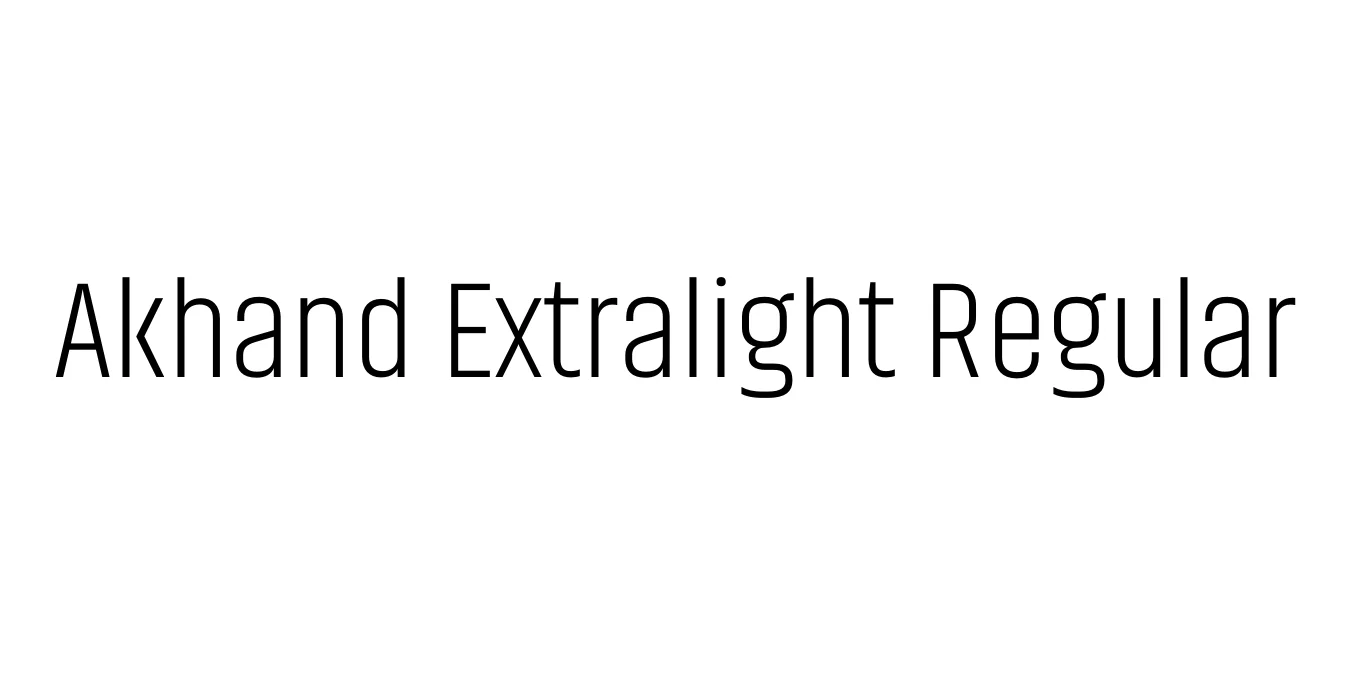
Akhand Extralight Regular
Designed by Satya Rajpurohit
Akhand Extralight Regular is a sophisticated member of the Akhand superfamily, designed by the renowned Satya Rajpurohit of the Indian Type Foundry (ITF). Characterized by its modular structure and condensed proportions, this typeface offers a clean, architectural aesthetic that thrives in modern design environments. The Extralight weight specifically brings a delicate and airy touch to the family's rigid geometry, making it an excellent choice for high-end editorial layouts and minimalist branding projects that require a sense of precision and contemporary elegance.
As part of a larger multi-script project, the design of Akhand focuses on maximum legibility within a compact footprint. Its straight-sided letterforms and open apertures ensure that even the lightest weights remain clear and impactful across various media. Whether utilized for sleek digital interfaces or large-scale architectural signage, Akhand Extralight stands out for its balanced harmony between industrial strength and refined minimalism, representing a pinnacle of modern sans-serif engineering.
Akhand Extralight Regular Best Uses
Perfect for thin, elegant headlines in fashion magazines and luxury books.
Ideal for creating minimalist corporate identities and high-end logo designs.
Excellent for clean navigation menus and high-impact hero sections in modern layouts.
Great for luxury product advertisements where a sophisticated, light touch is needed.